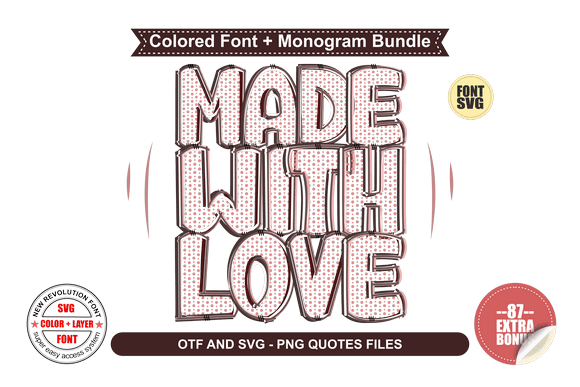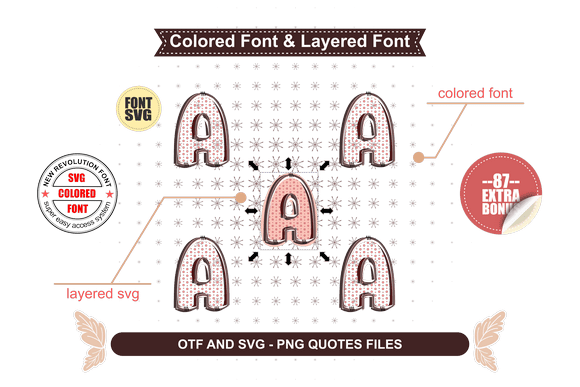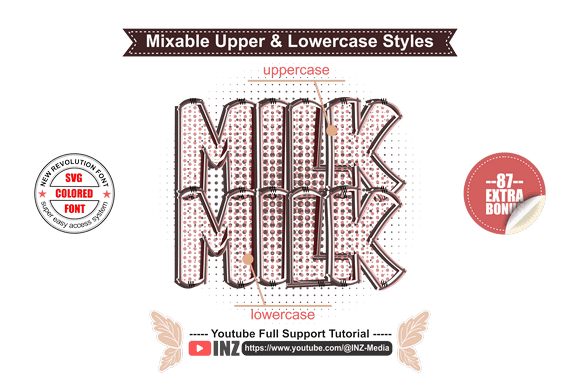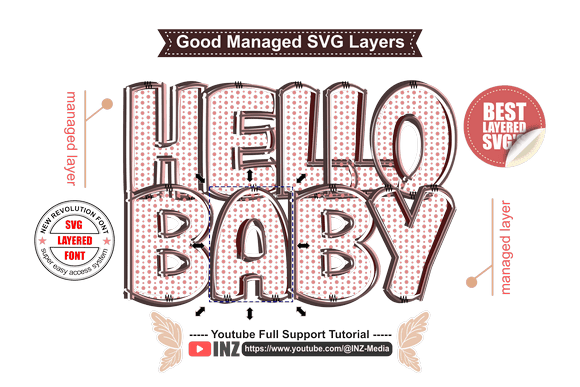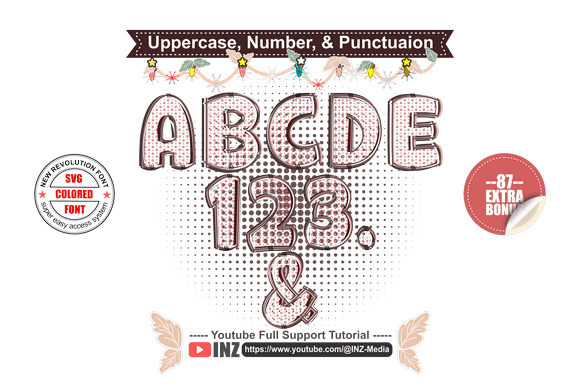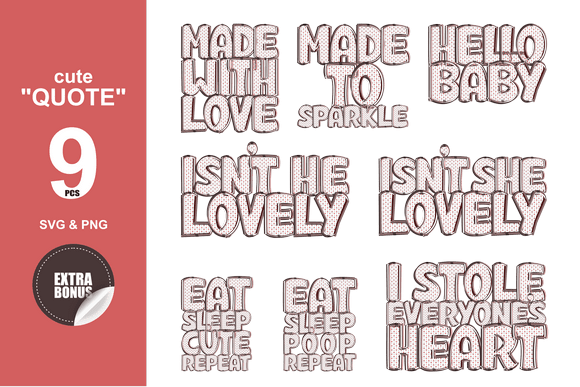
The DOT Font: A Retro Revival for Your Designs
Have you ever been in the middle of a design project, and suddenly, you just can’t seem to find the right font? I recall a particularly frustrating experience while working on a Valentine’s Day t-shirt design. My client wanted something that screamed retro love, but my usual go-to fonts just weren’t cutting it. That’s when I stumbled upon the “DOT” Colored SVG font, and let me tell you, it was love at first sight! 💘
What Makes DOT So Special?
The “DOT” font is a game-changer for anyone looking to add a distinctive touch to their projects. Its vibrant, vintage, and retro style is perfect for a wide range of applications, from t-shirts and pillows to greeting cards and digital planners. This Color Font is ideal for designers, crafters, and creative hobbyists who want to transform their designs into retro-style masterpieces.
So, what do I love about the “DOT” font? Here are a few highlights:
- ✨ Vibrant Colors: The font comes in a variety of bright, fun colors that instantly add a pop of personality to any design.
- ✅ Easy to Use: Whether you’re a seasoned designer or a crafting newbie, the “DOT” font is incredibly easy to work with.
- 💕 Perfect for Love-themed Designs: The font’s retro vibe makes it a perfect fit for Valentine’s Day, Mother’s Day, Father’s Day, and other love-themed projects.
Now, are there any quirks? 🤔 Well, I did notice:
- ⚠️ Limited Multicolor Support: Some platforms might not fully support multicolor fonts, so be sure to test your design before finalizing.
The Designer Inspiration Behind DOT
While the true origins of the “DOT” font are unclear, it’s easy to imagine a designer who grew up surrounded by vintage posters and colorful street art. This designer likely wanted to bottle up that retro magic and make it accessible to everyone. The result is a font that’s both nostalgic and refreshingly modern.